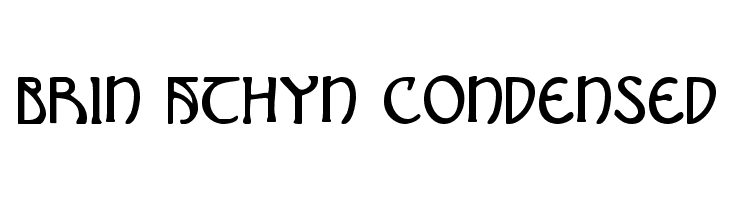
( Fonts by www.kingthingsfonts.co.uk )
An ornate and decorative font with intricate details and bold strokes.
( Font by kingthingsfonts.co.uk )
A bold, medieval-inspired font with sharp, angular lines and ornate detailing.
( Font by kingthingsfonts.co.uk )
A bold, outlined font with a medieval and gothic style, featuring intricate and decorative characters.
( Fonts by www.peter-wiegel.de. Personal-use only. For commercial use please contact owner. )
A bold and ornate blackletter font with intricate details and historical elegance.
( Fonts by Manfred Klein - manfred-klein.ina-mar.com )
A traditional Blackletter font with ornate, angular characters and historical elegance.